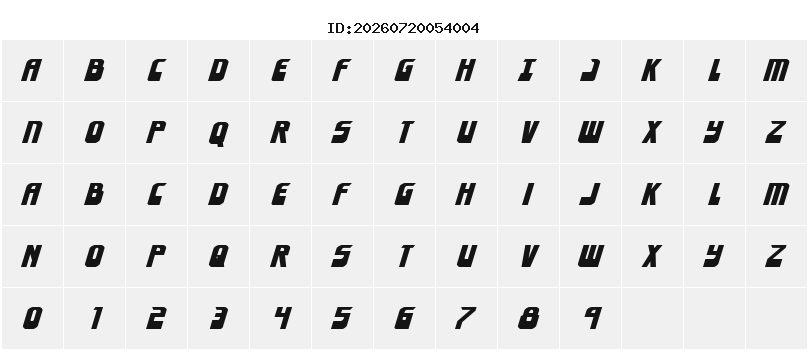
EldebaranExpanded Italic Preview
• Font Name: EldebaranExpanded Italic
• Font Style: Expanded Italic
• Full Font Name: Eldebaran Expanded Italic
About EldebaranExpanded Italic.ttf
EldebaranExpanded Italic.ttf is a modern, elegant sans-serif font designed for ultimate readability and visual harmony. Perfect for branding, headlines, web design, and print materials.